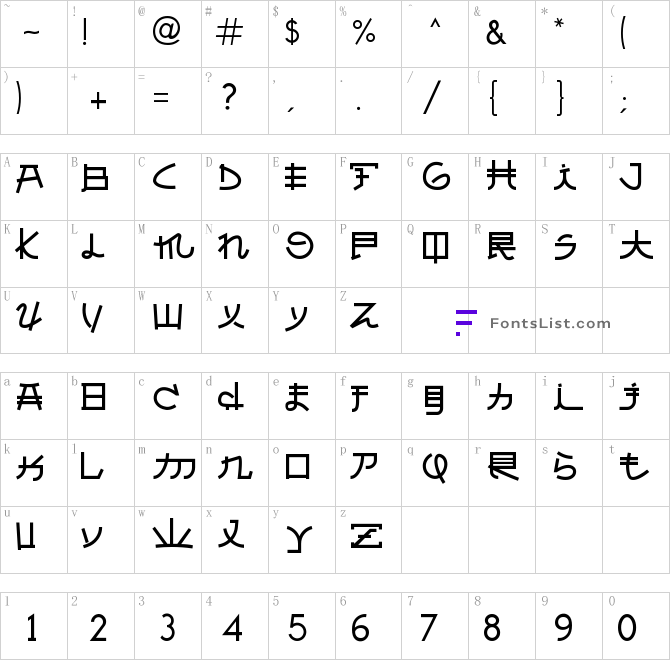
- Font Name:Almost Japanese
Almost-Japanese.ttf is a very beautiful artistic font, Almost-Japanese.ttf is widely used in the design and printing of various books and pictures,Almost-Japanese.ttf has a strong visual impact,Almost-Japanese.ttf is a commonly used font in newspapers, magazines and books, and is used in posters, e-commerce Poster design, store design, logo design, font design and other fields.Almost-Japanese.